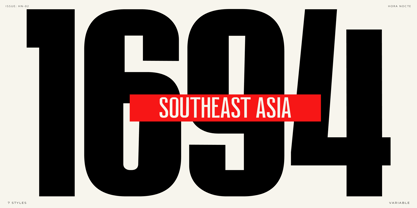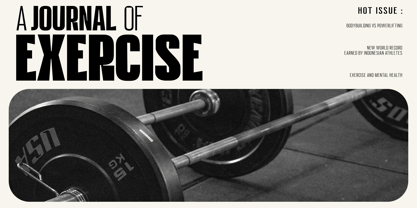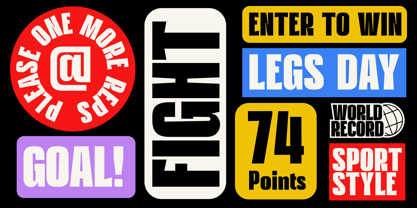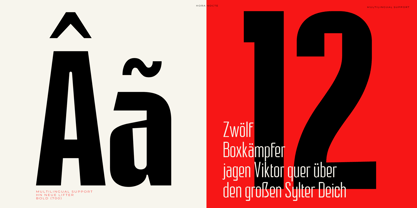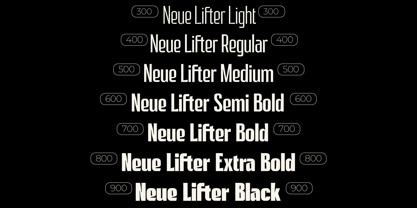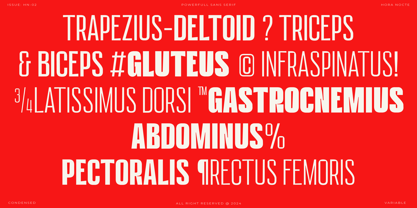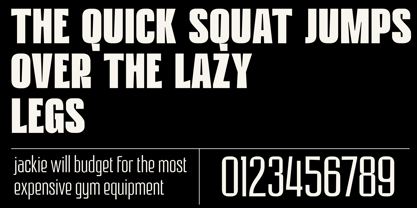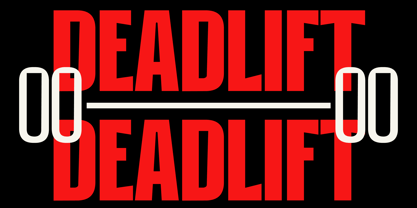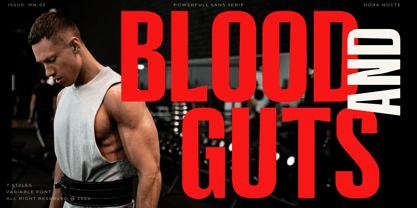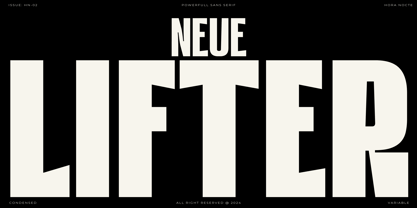
HN Neue Lifter
Die Schriftfamilie HN Neue Lifter wurde von Hasto Nugroho entworfen und von Hora Nocte Type Foundry veröffentlicht. HN Neue Lifter enthält 7 Stile und Familienpaketoptionen.
HN Neue Lifter is a dynamic typeface inspired by sports, exuding a sporty, trendy, modern, and stylistic vibe. Available in seven powerful styles, this font offers versatility for various design applications. HN Neue Lifter is perfect for both display and identity work, seamlessly transitioning from bold, aggressive headlines to sleek, minimal tech layouts. The distinct uppercase and lowercase letters enable you to craft a sporty, eye-catching design with a unique edge, making it ideal for branding, web design, and editorial projects.